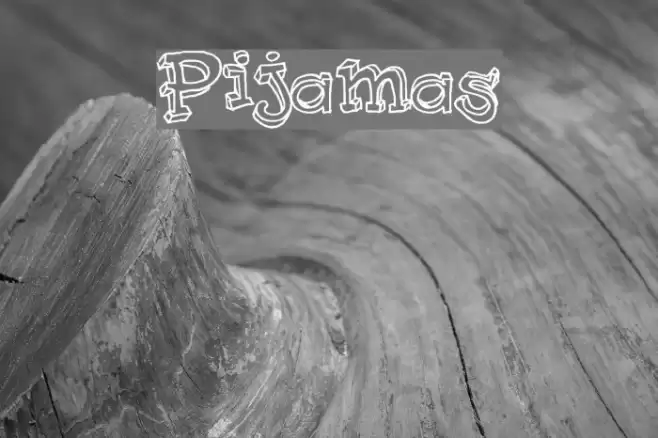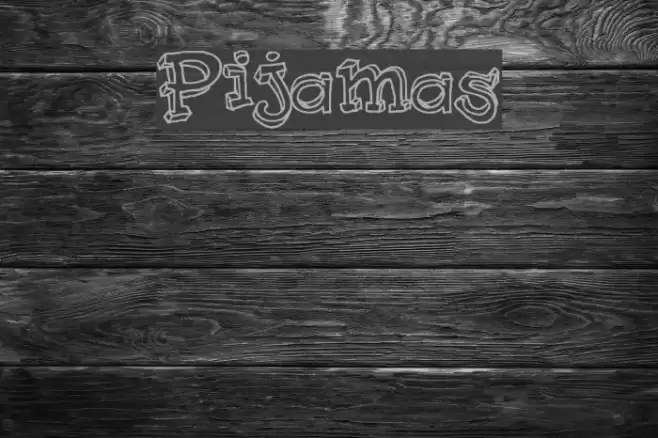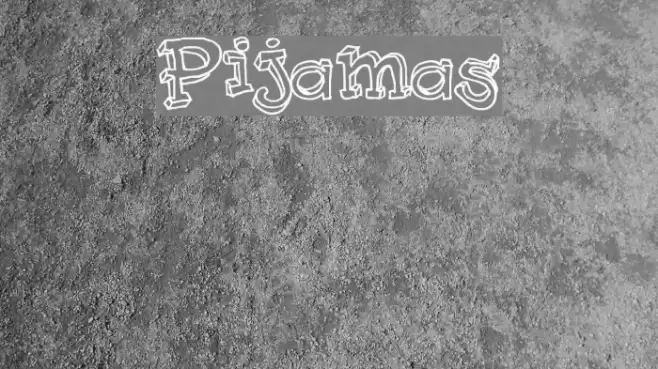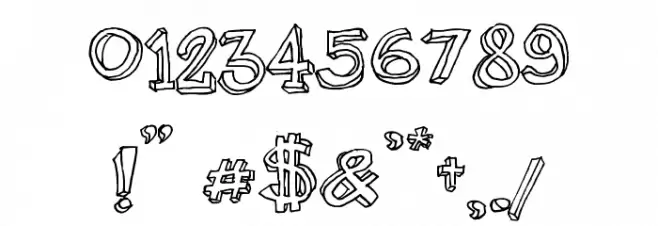
Pijamas Font
Pijamas Description
This font features a playful and whimsical design, characterized by its bold, hand-drawn appearance. Each letter is outlined with a thick, uneven stroke, giving it a cartoonish and informal look. The characters have a slightly irregular shape, adding to the casual and fun aesthetic. The font includes both uppercase and lowercase letters, numbers, and a variety of special characters. Its unique style makes it stand out, perfect for projects that require a touch of creativity and humor.
A playful, hand-drawn font with bold outlines and a whimsical style from Uncategorized fonts.
- Proposed Projects: Ideal for children's books, comic strips, playful branding, and creative posters.
- Overall Style: Playful, Whimsical, Cartoonish
- Use Case: Headlines, Posters, Creative Branding